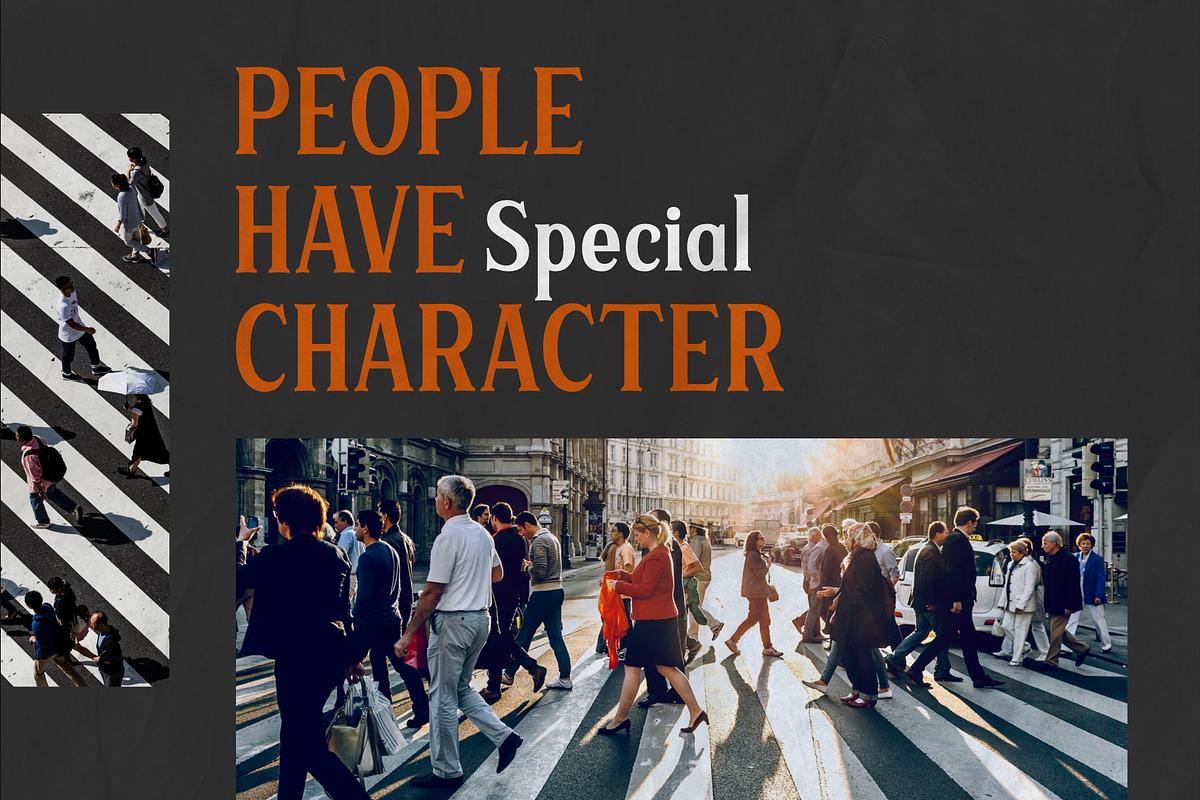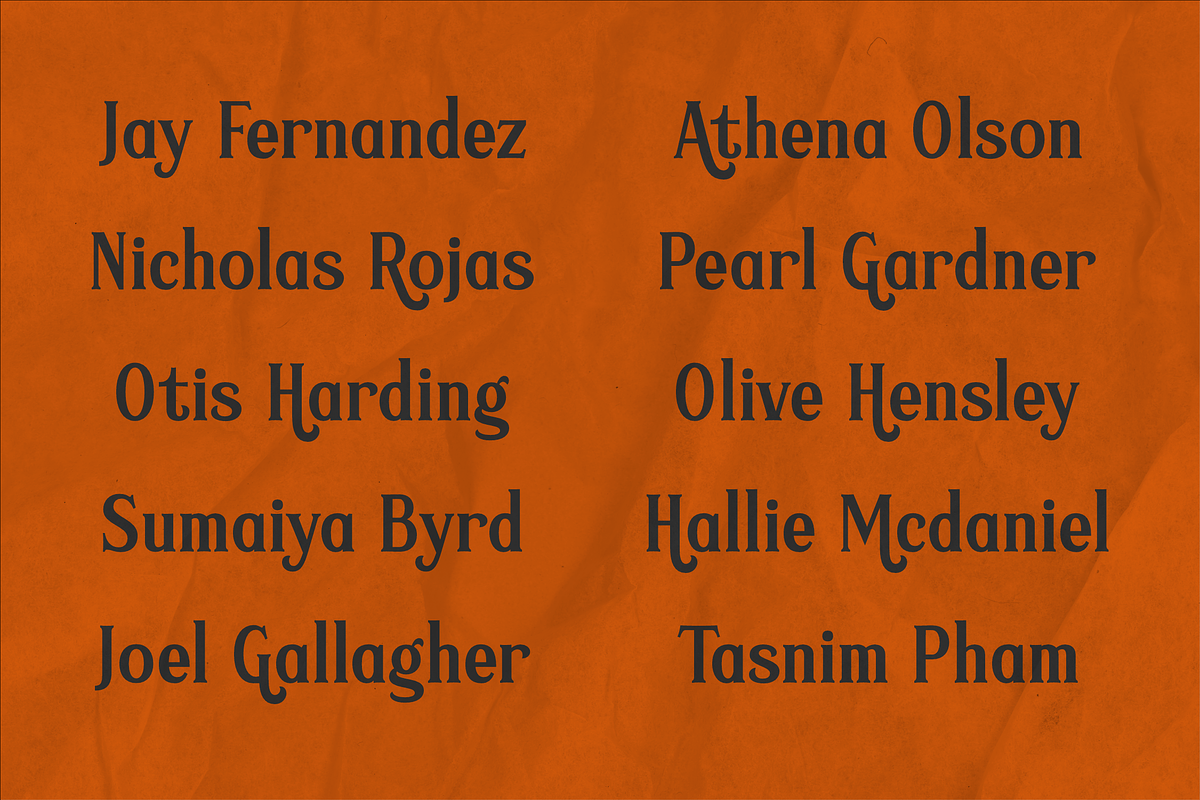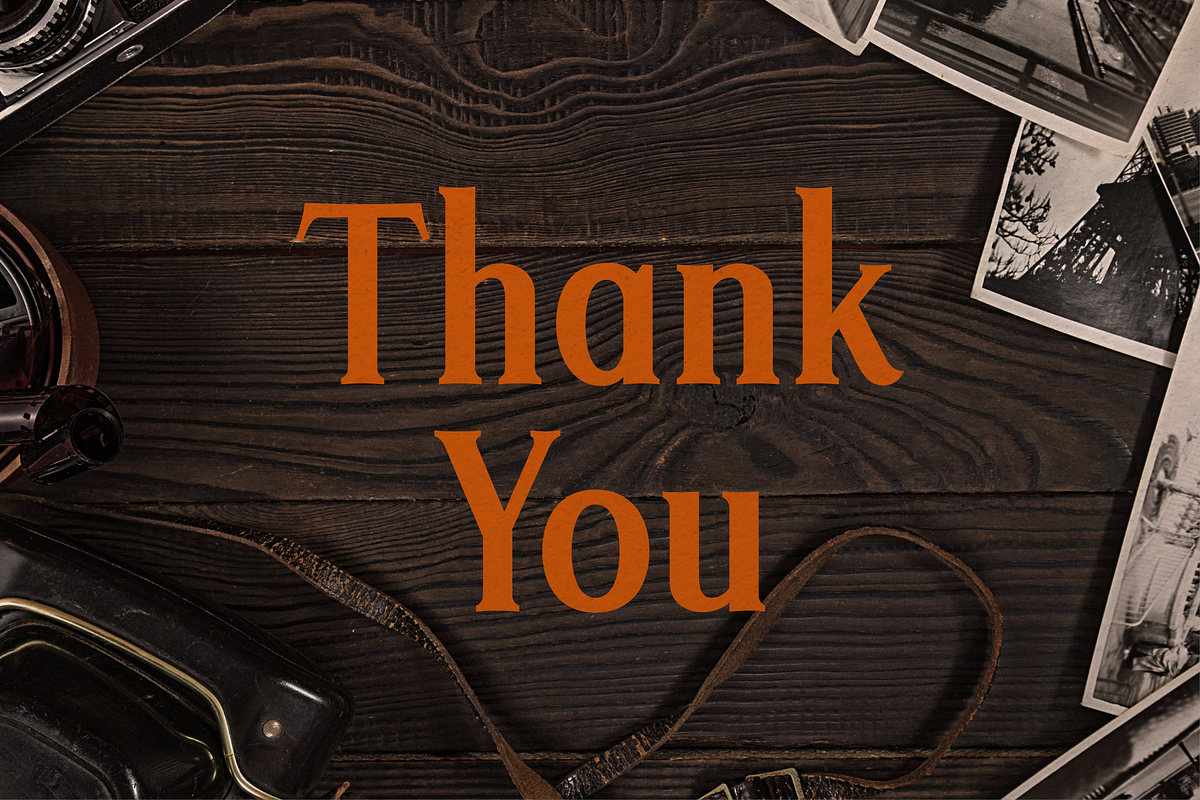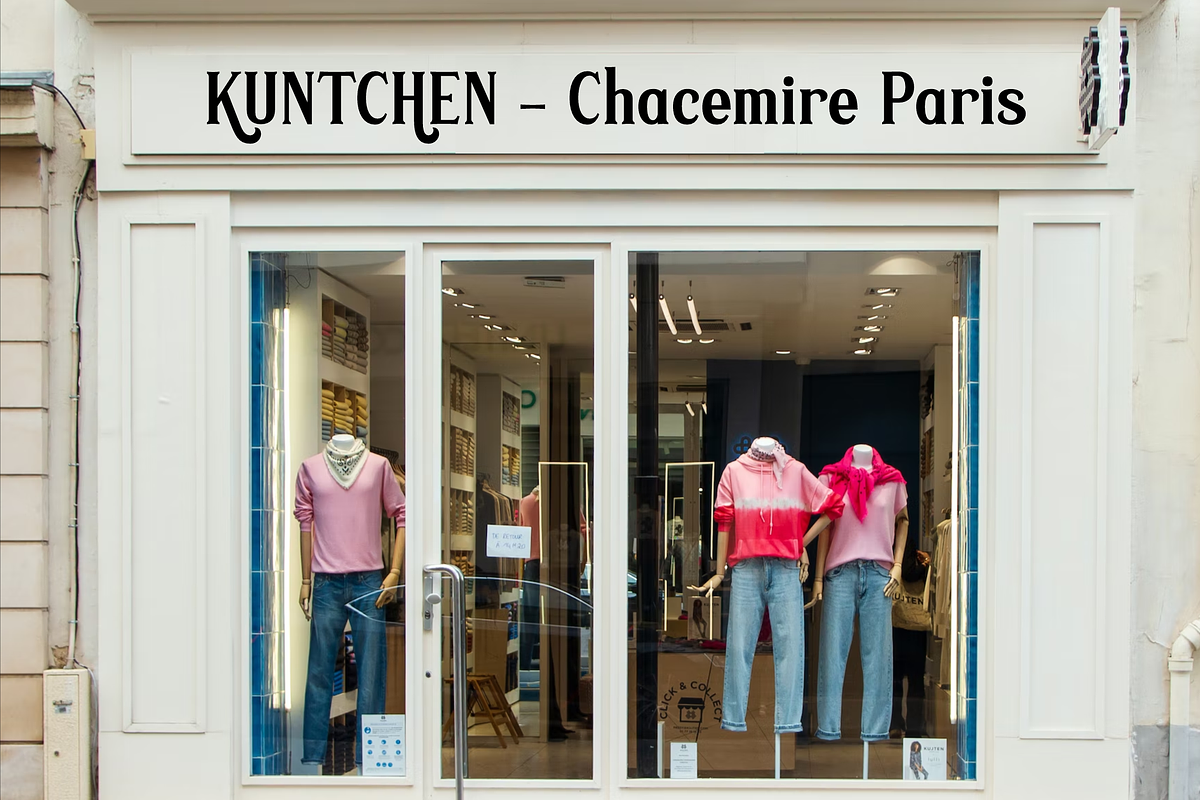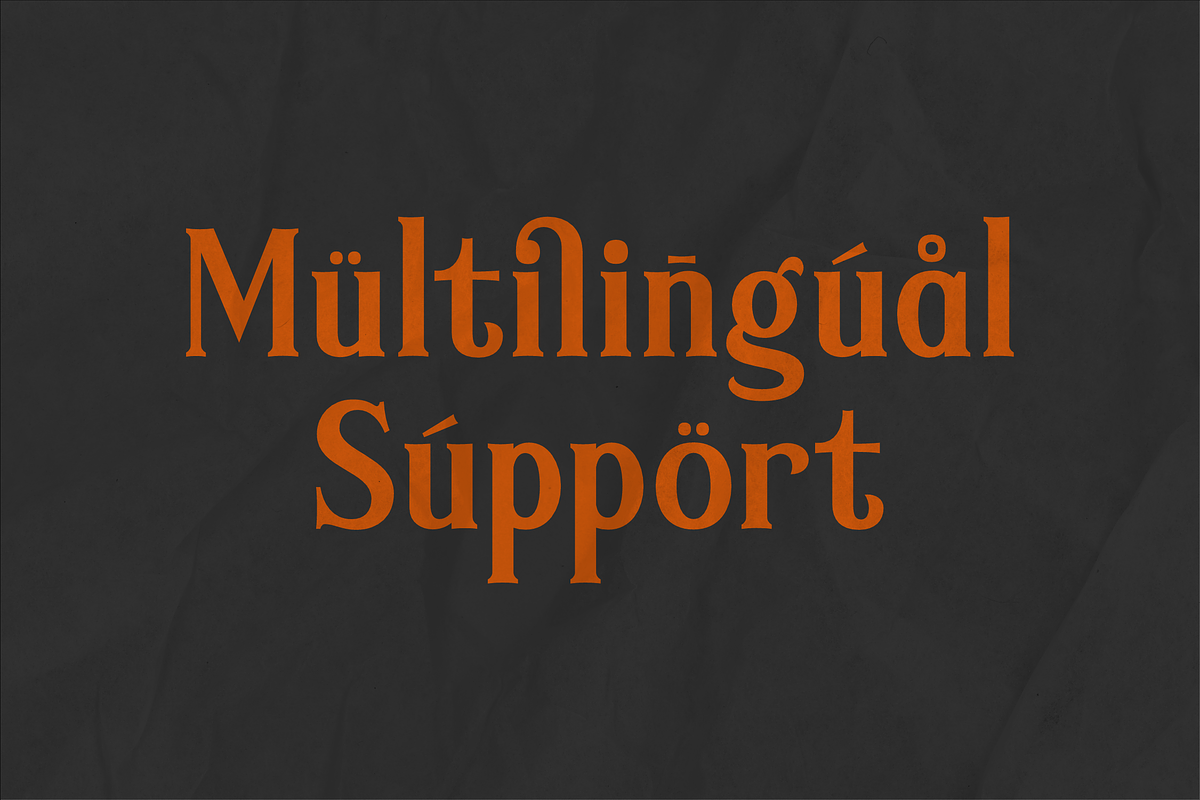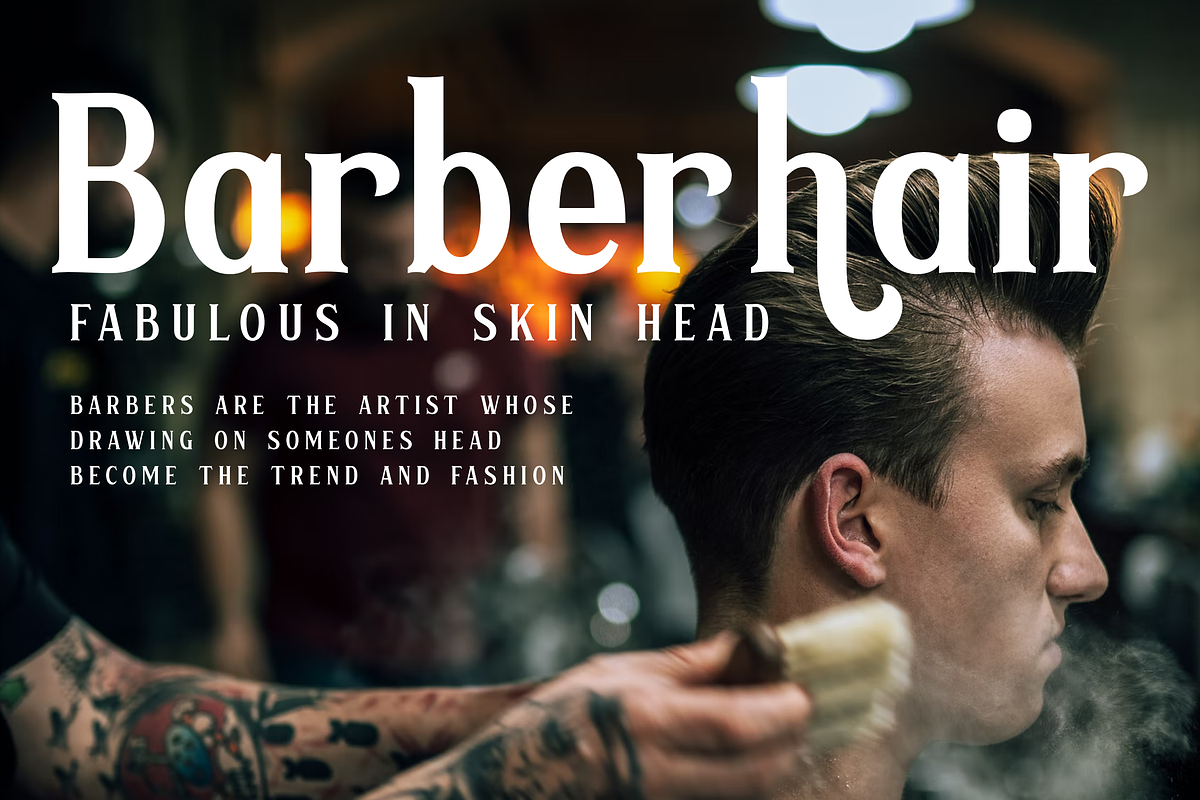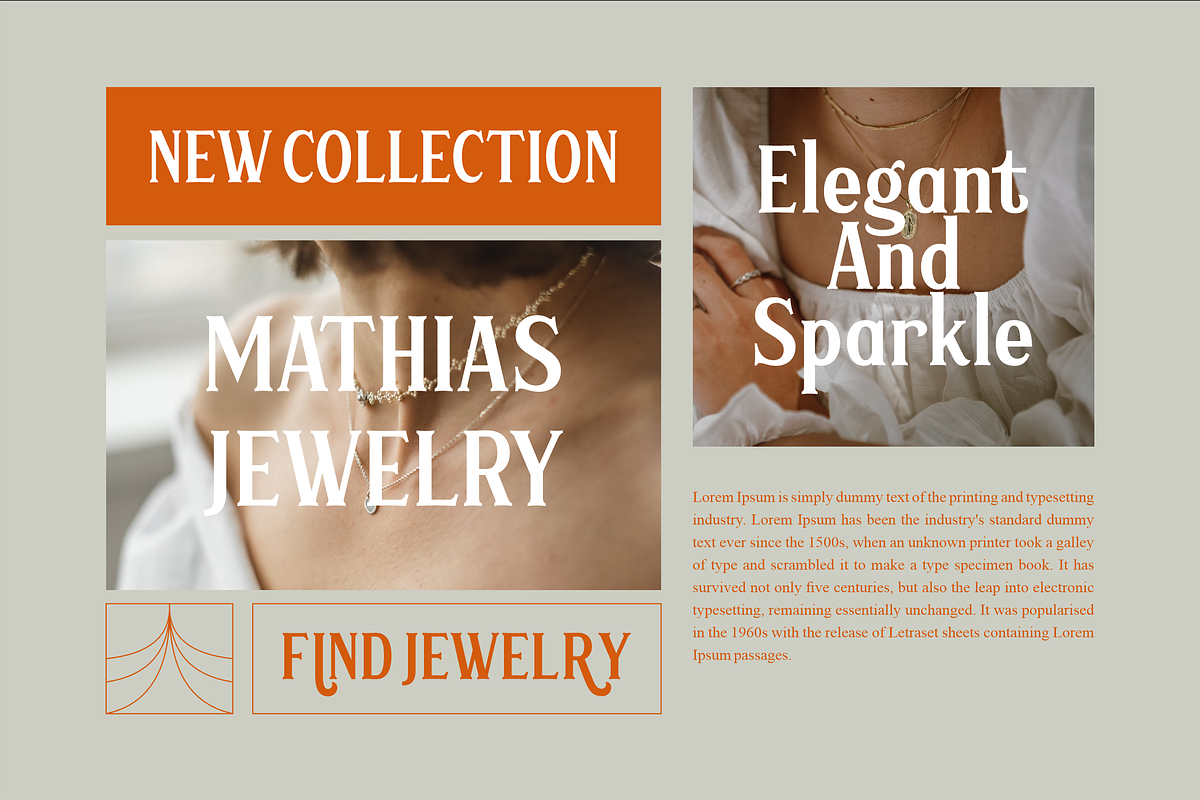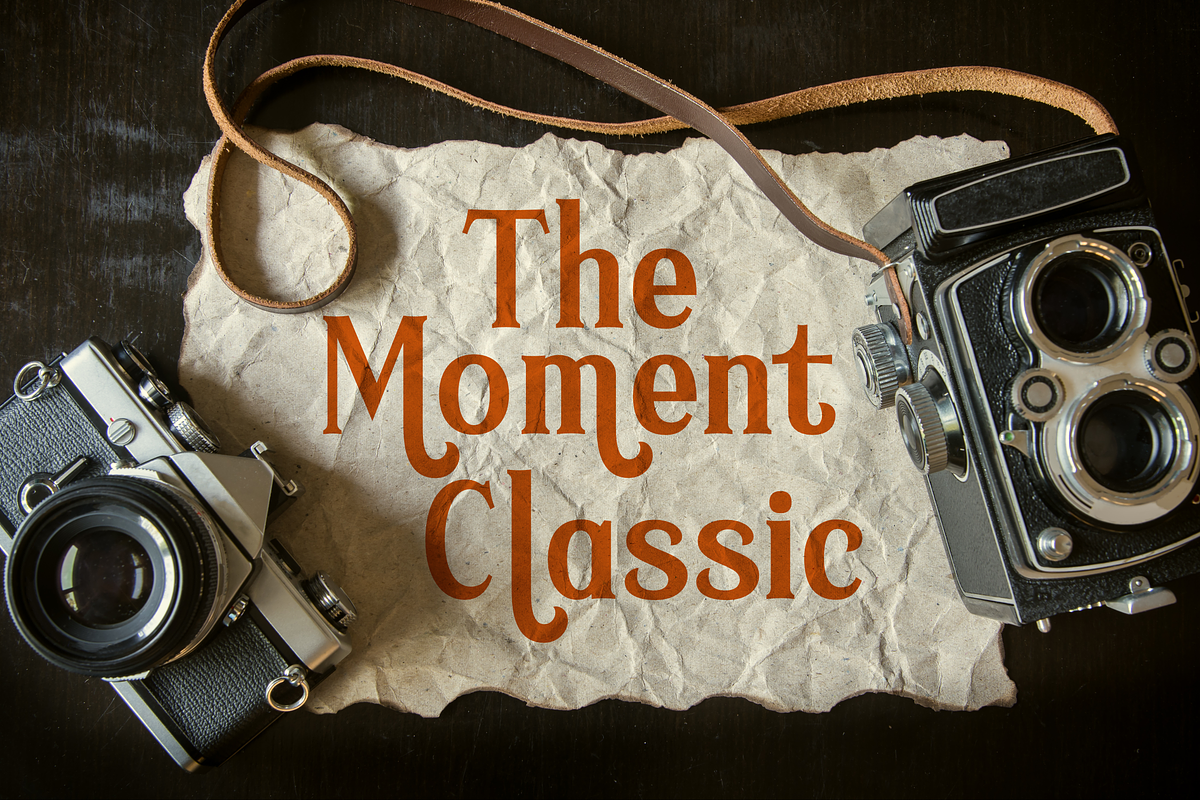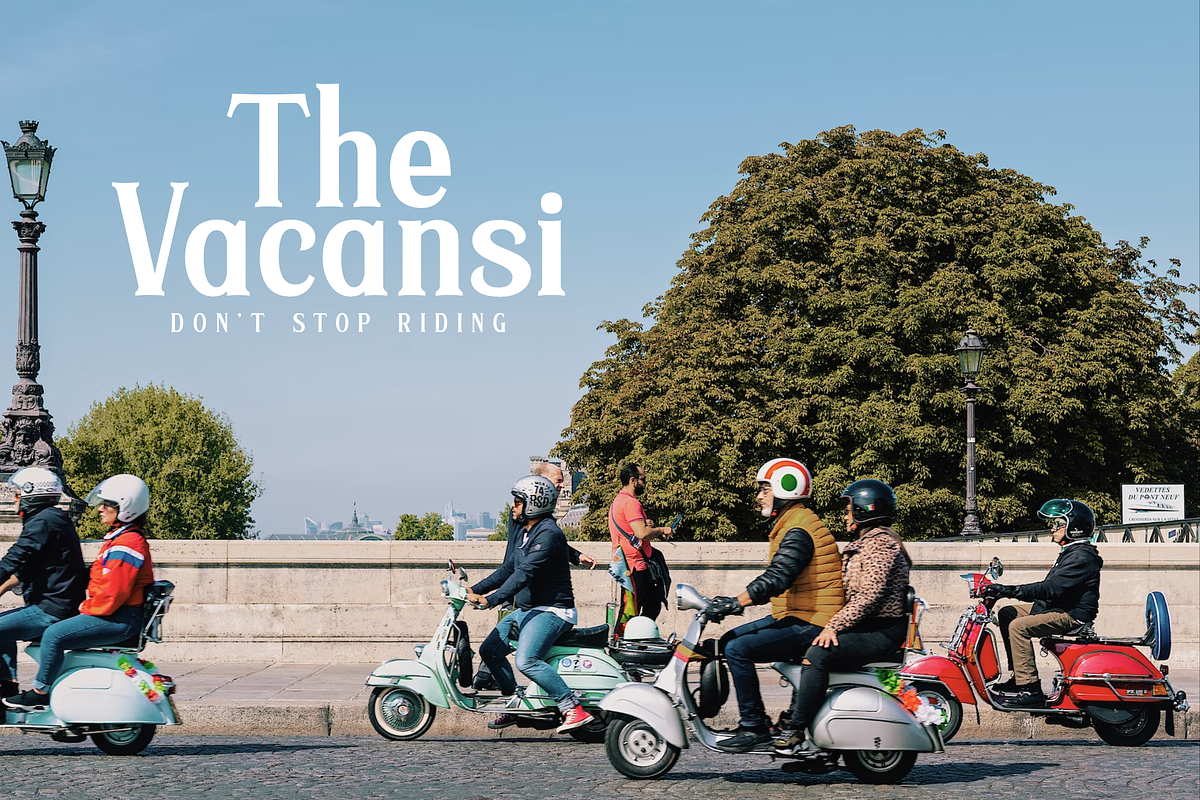
Rabilone A Modern Serif Font
Proudly present Rabilone Typeface , created by Storytype, A serif modern and classic typeface that has own unique style & modern look. This typeface is perfect for an elegant & luxury logo, book or movie title design, fashion brand, magazine, clothes, lettering, quotes, and so much more.